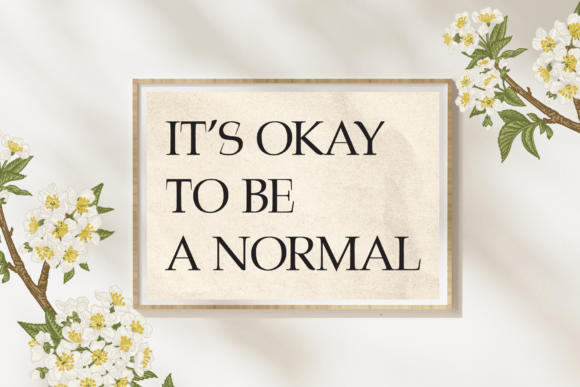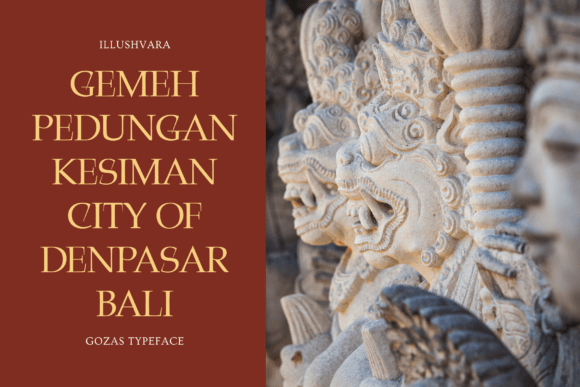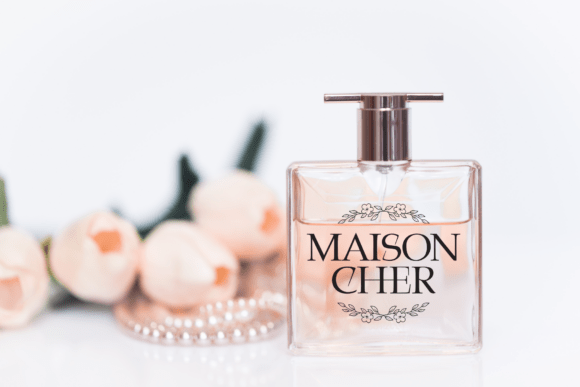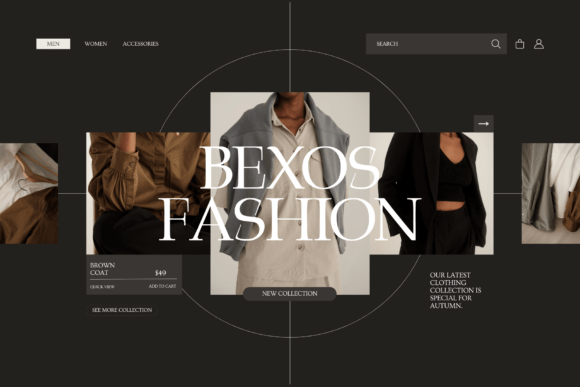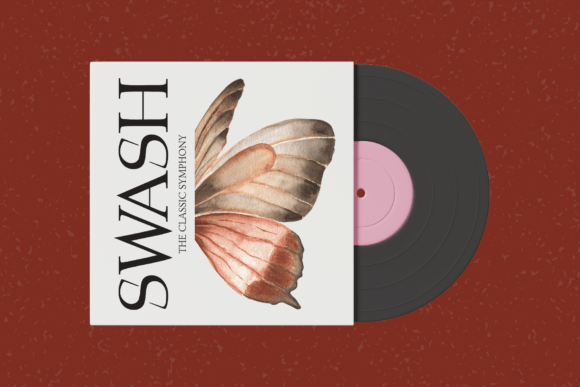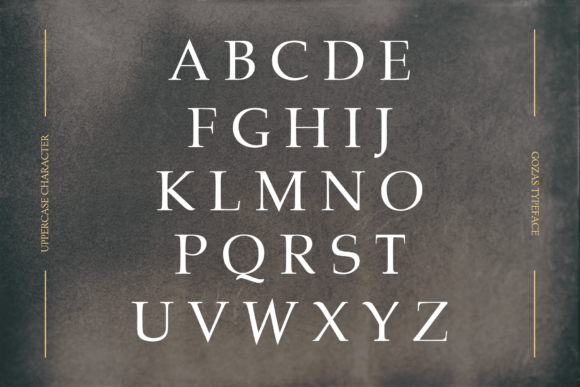
The Elegance of Gozas Font: A Designer’s Dream
I still remember the project like it was yesterday. I was tasked with creating a luxury brand identity for a high-end fashion label, and I was on a mission to find the perfect font. I scoured the internet, tried out countless typefaces, but nothing seemed to capture the essence of vintage glamour and sophistication that I was looking for. That was until I stumbled upon Gozas Font. ✨
Its elegant, art deco-inspired design with dramatically elongated serifs immediately caught my attention. I knew I had found the one. In this article, I’ll share my love for Gozas Font, its features, and how to make the most of it in your designs.
- ✨ Elegant and sophisticated design that’s perfect for luxury branding
- ✅ Dramatically elongated serifs that add a touch of vintage glamour
- 🔥 Bold geometry and intricate detailing that evoke a sense of grandeur and opulence
- 🌈 Perfect for editorial headlines, high-end packaging, and any project that requires a refined yet extravagant presence
While Gozas Font is an amazing typeface, there are a few things to keep in mind: 🤔
- ⚠️ Some of the elongated serifs can be a bit finicky when it comes to kerning and spacing
- ⚠️ The font may not be suitable for body text or smaller sizes, as it can be a bit too ornate
The Story Behind Gozas Font
Gozas Font was inspired by the opulent designs of the 1920s. Its creator, a talented type designer, wanted to capture the essence of art deco and vintage glamour in a single typeface. The result is a font that exudes sophistication and elegance, perfect for luxury branding and high-end design projects.
Q: What is Gozas Font best used for?
A: Gozas Font is perfect for luxury branding, editorial headlines, high-end packaging, and any project that requires a refined yet extravagant presence.
Q: Can I use Gozas Font for body text?
A: While Gozas Font is an amazing typeface, it’s not ideal for body text or smaller sizes. It’s best used for headlines and titles where its elegant design can shine.
Q: Is Gozas Font easy to read?
A: Yes, Gozas Font is relatively easy to read, especially at larger sizes. However, its ornate serifs and bold geometry may make it more challenging to read at smaller sizes.